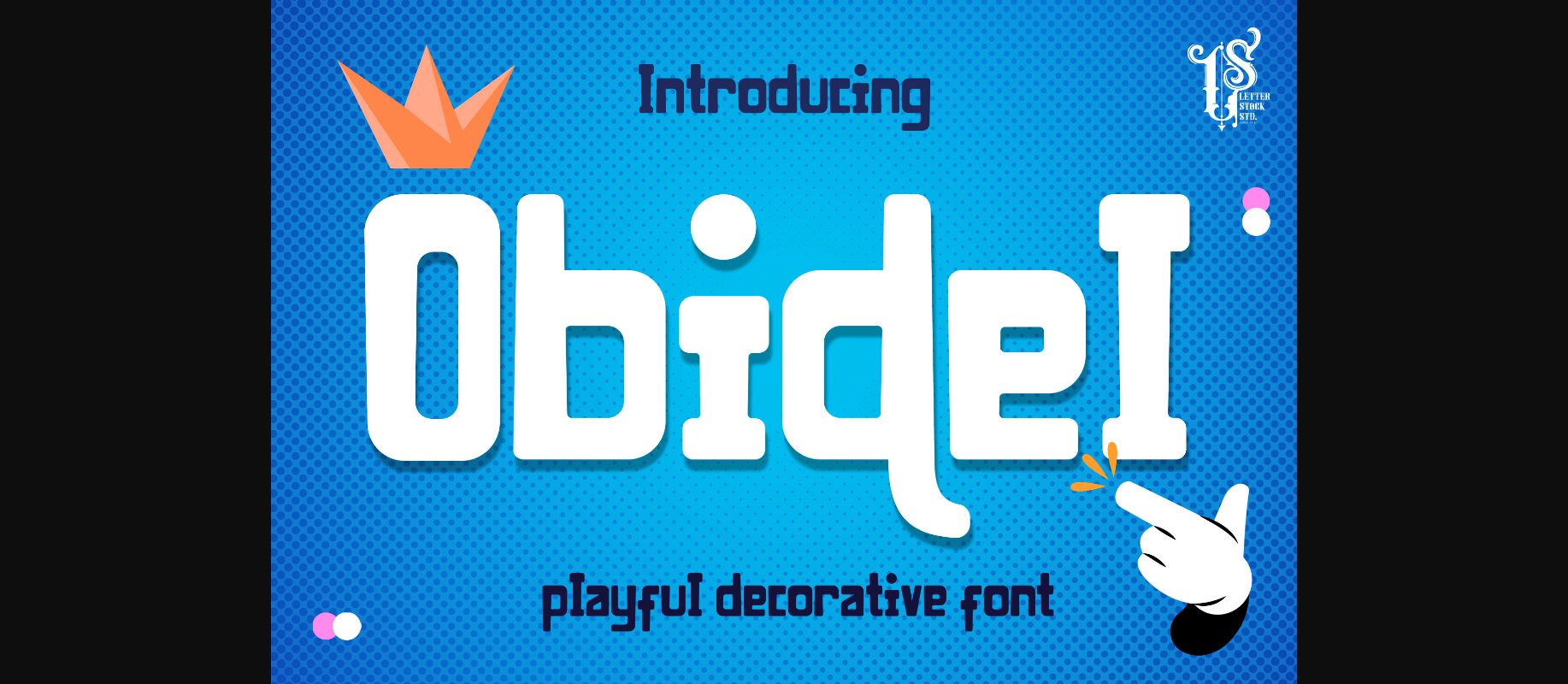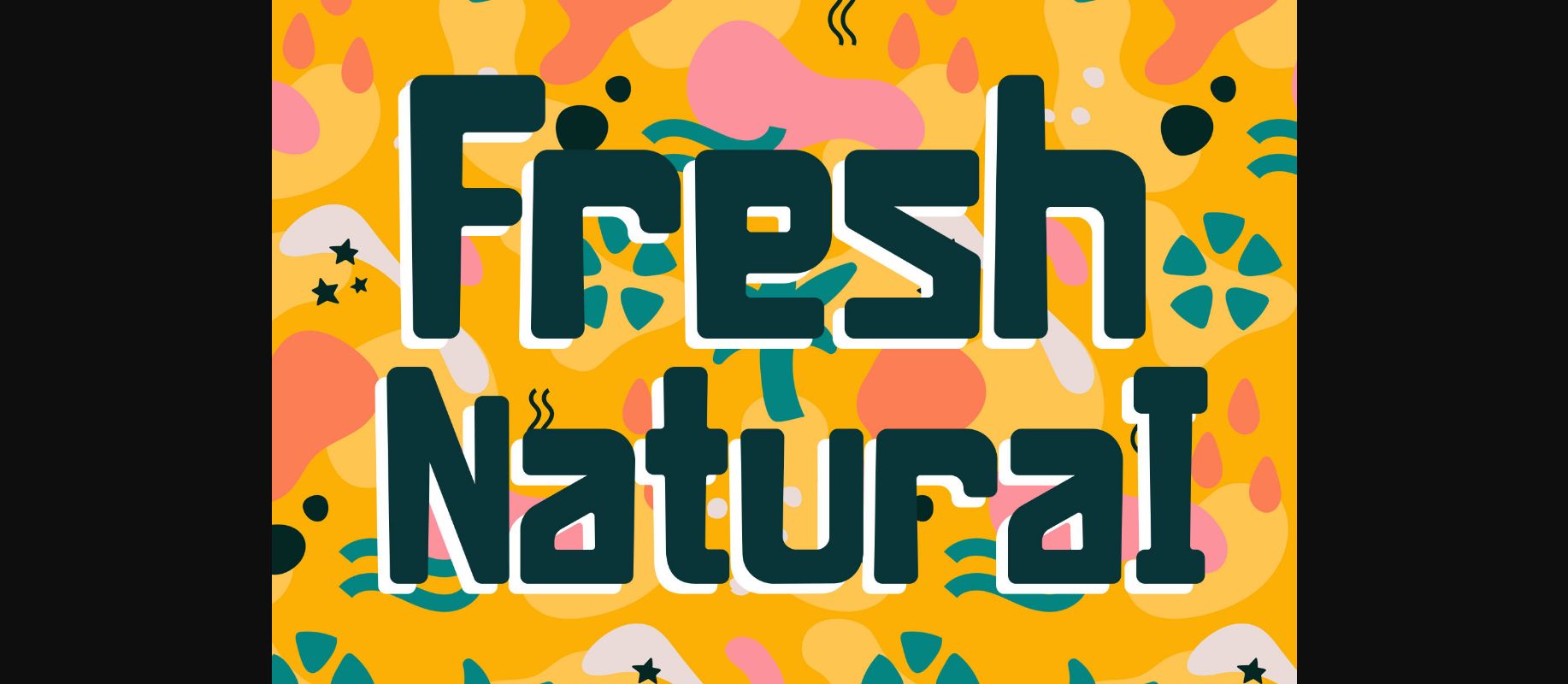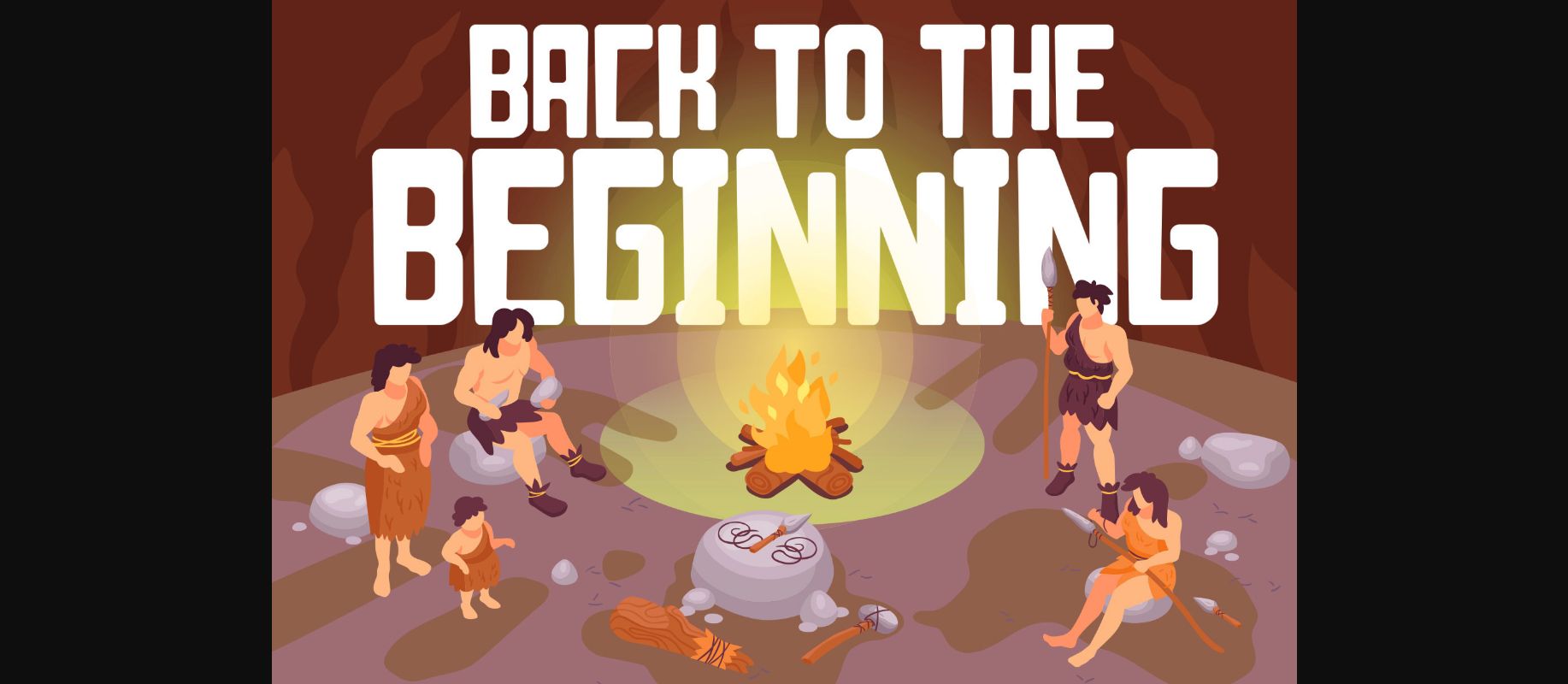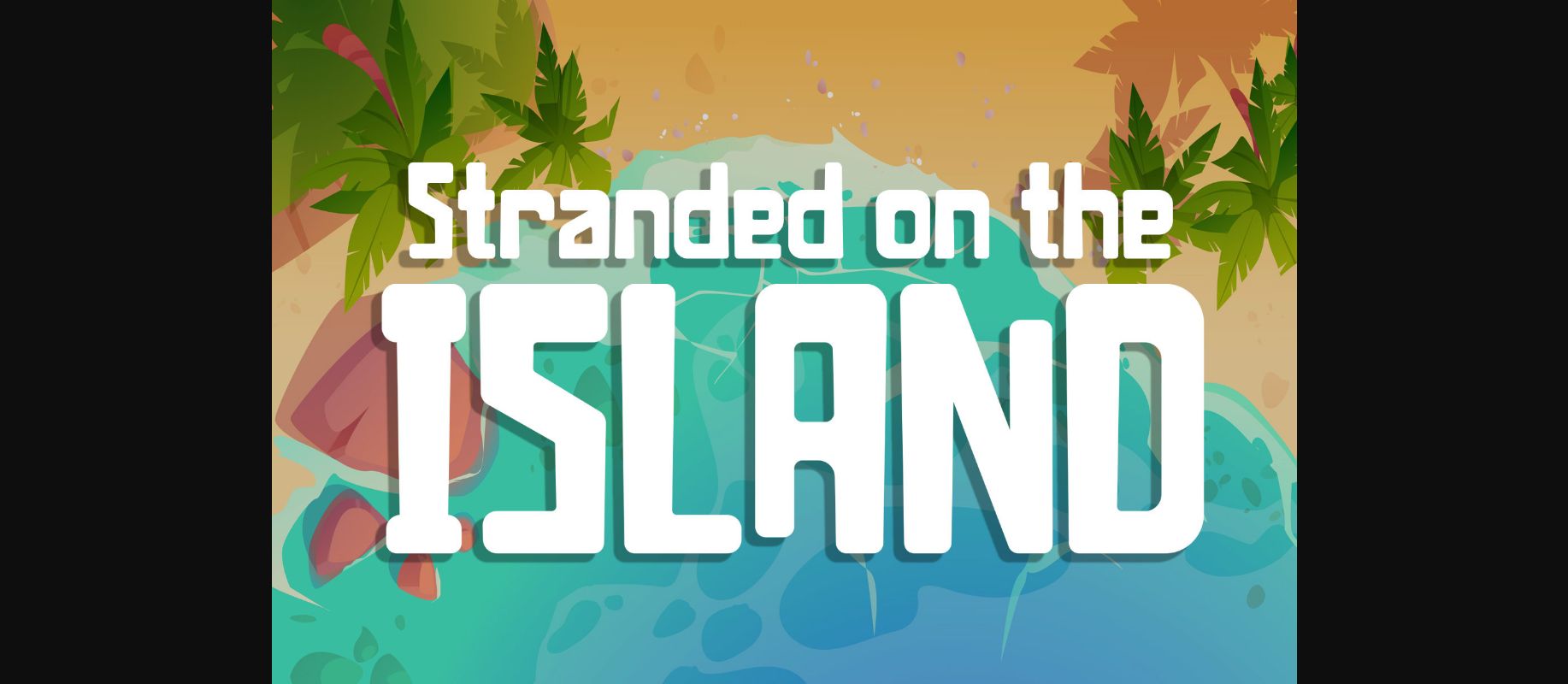
About Obidel Font
Obidel is a very good-looking playful Decorative font that can be used for logotypes, labels, t-shirt prints, product packaging, invitations, advertising, and much more! Add it to your creative ideas and notice how it makes them stand out.